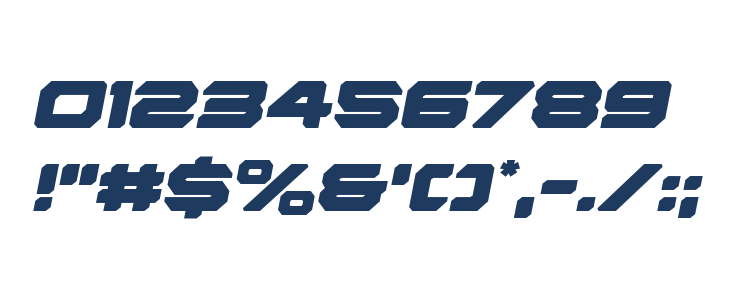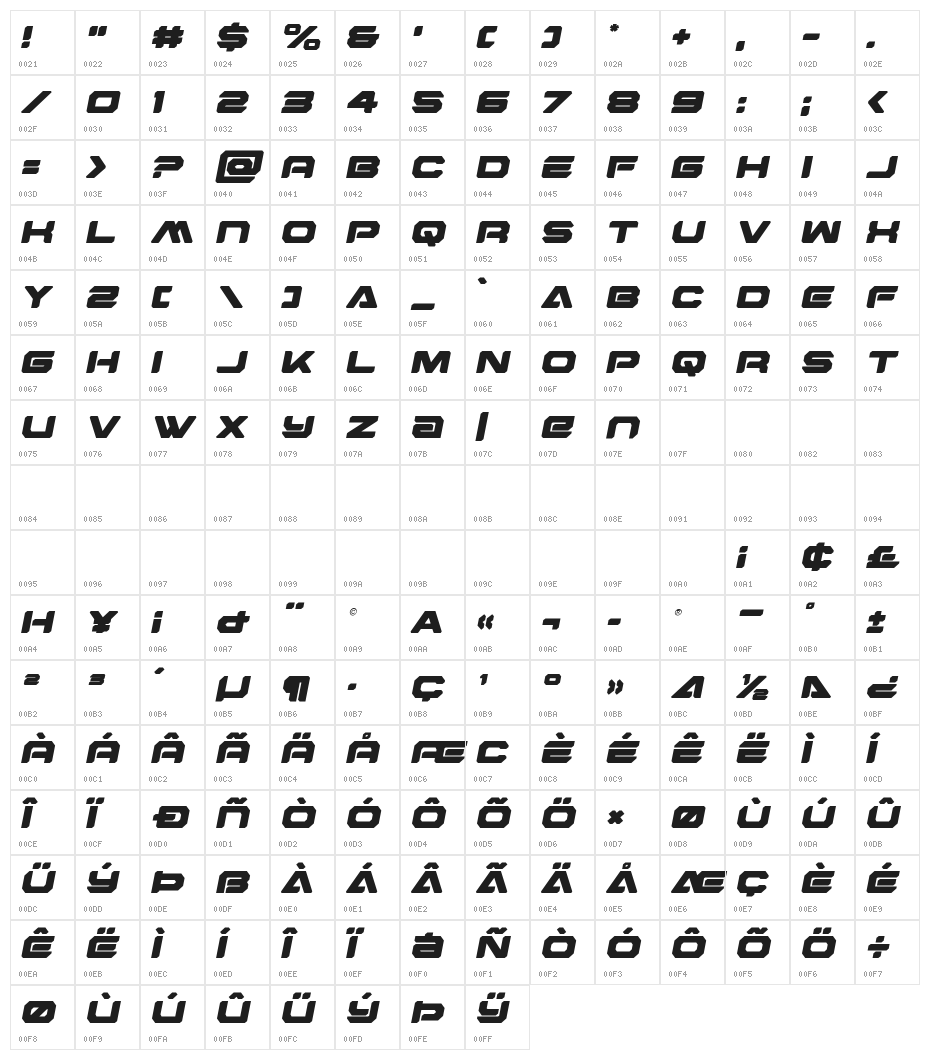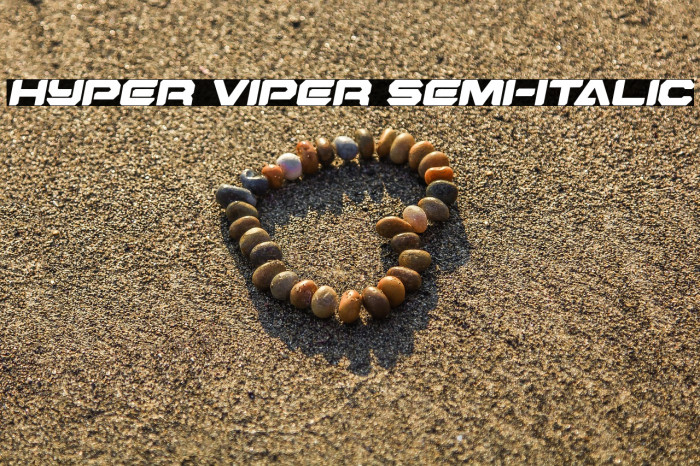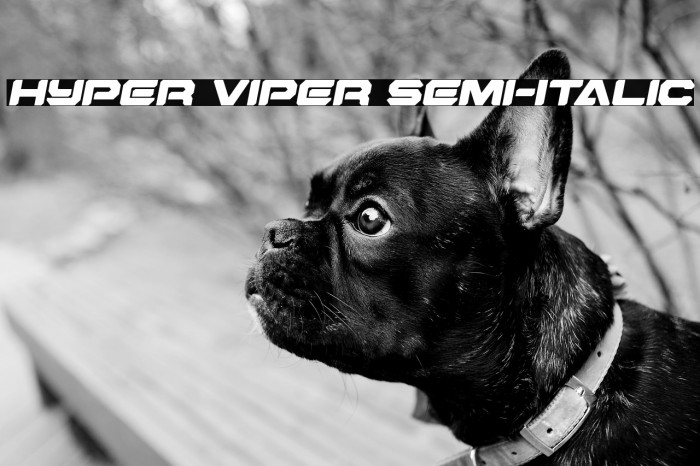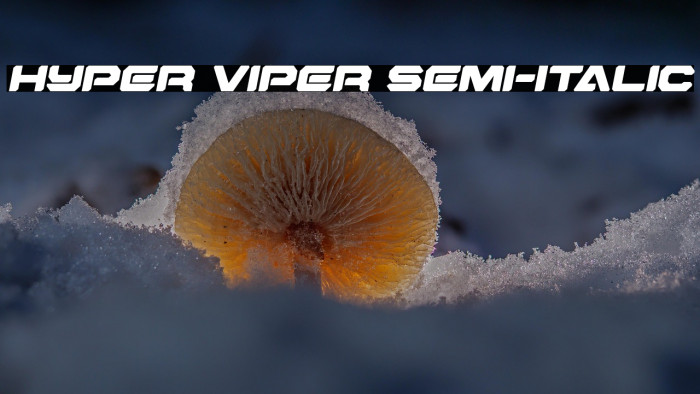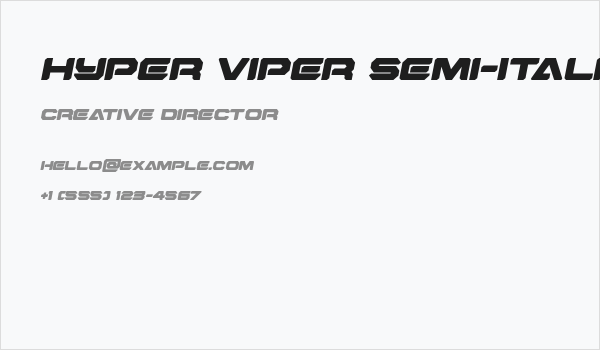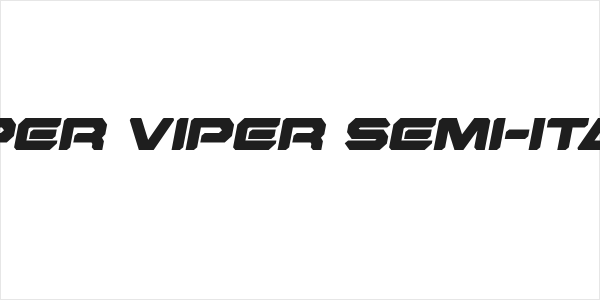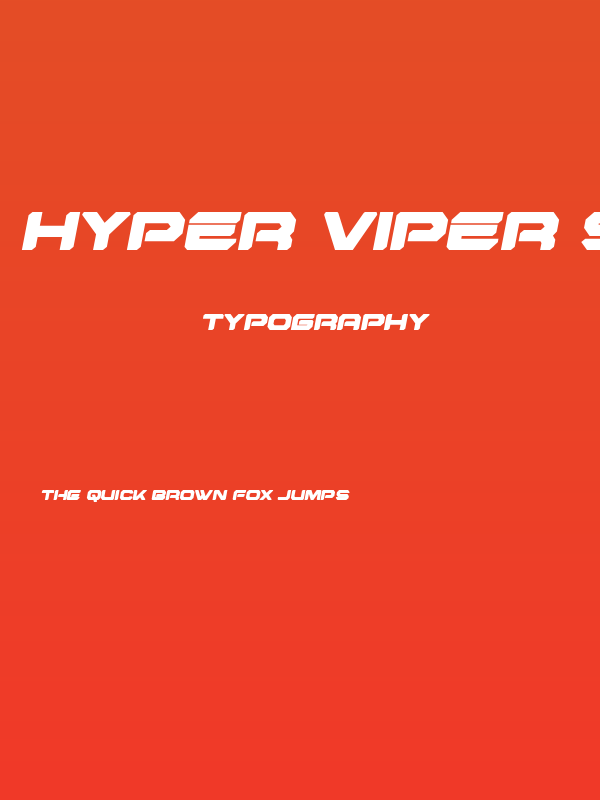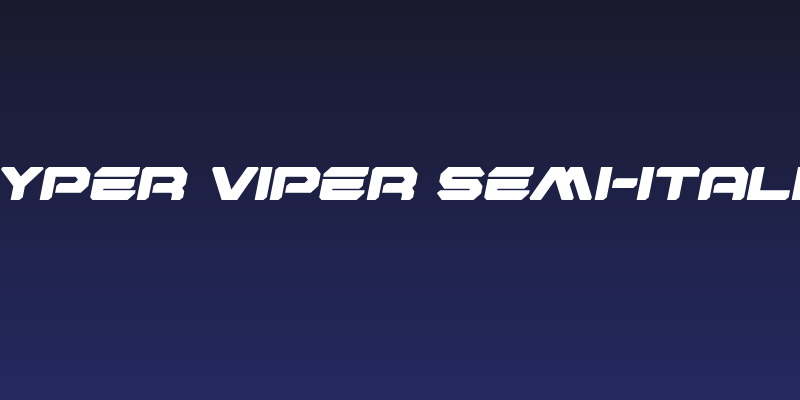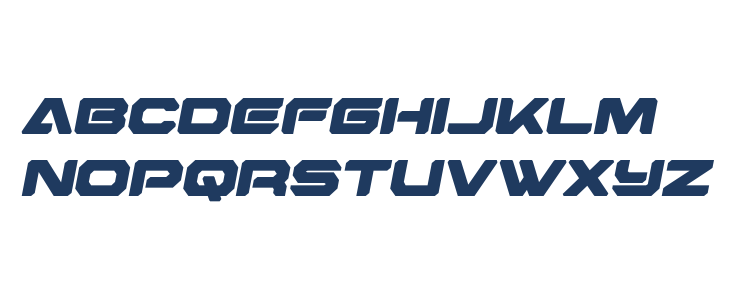
Hyper Viper Semi-Italic Font
Hyper Viper Semi-Italic Description
This font features a bold, futuristic design with a semi-italic slant, giving it a dynamic and forward-moving appearance. The characters are wide and angular, with sharp edges and a strong presence. The uppercase and lowercase letters maintain a consistent style, enhancing readability while retaining a unique aesthetic. The numbers and special characters are designed to match the boldness and angularity of the alphabet, ensuring a cohesive look across all text. This font is ideal for projects that require a modern and edgy feel.
Proposed ProjectsIdeal for tech branding, video game titles, sports team logos, and sci-fi themed designs.